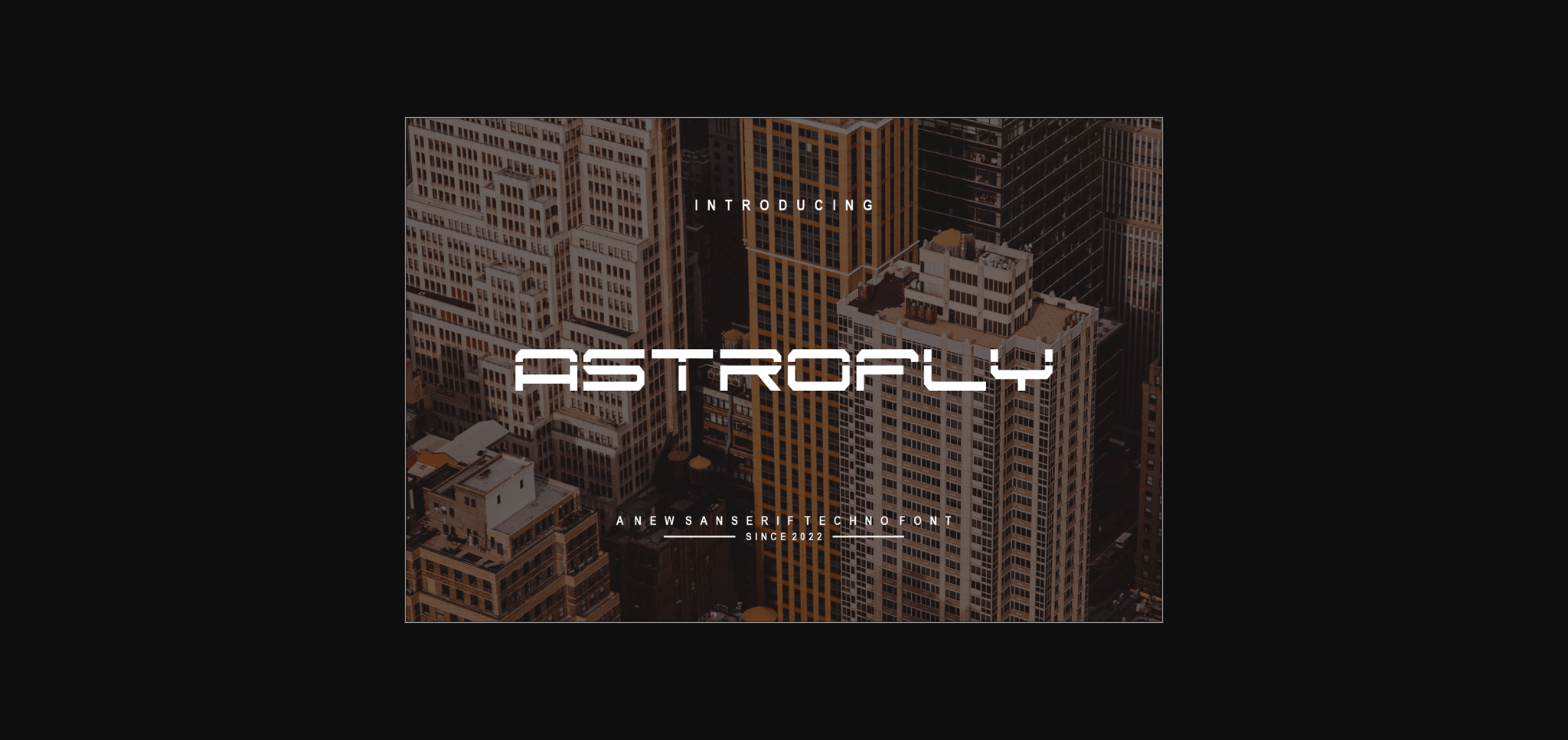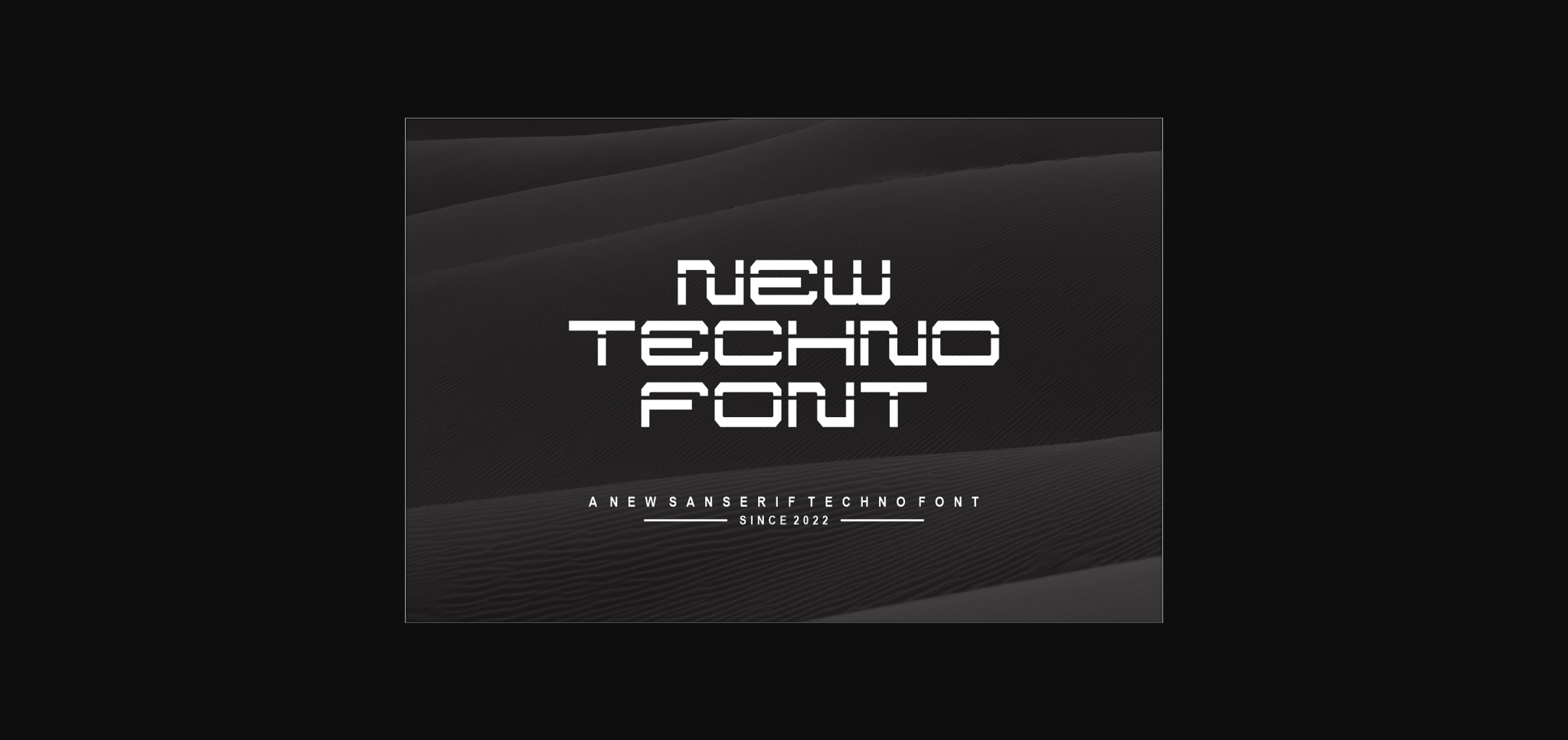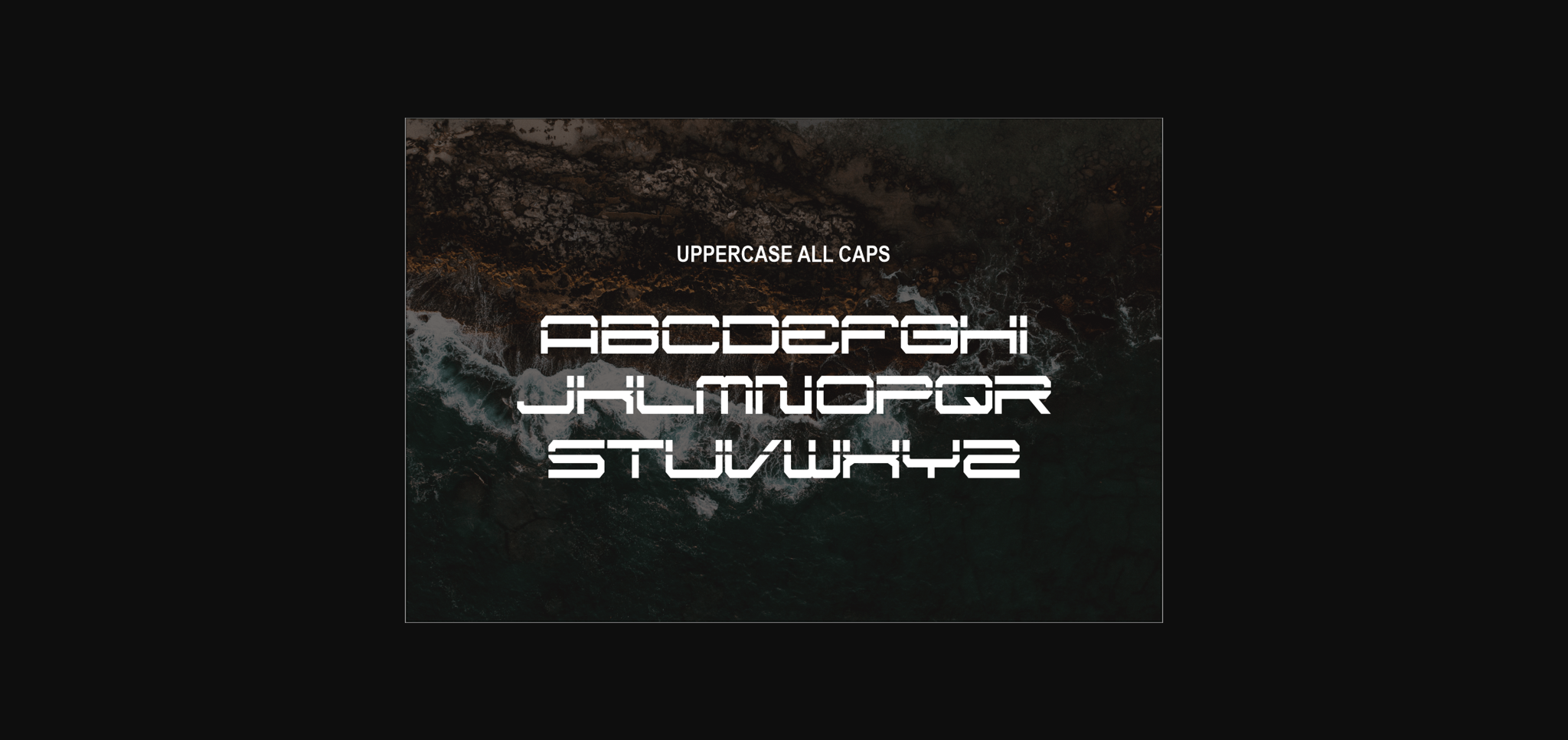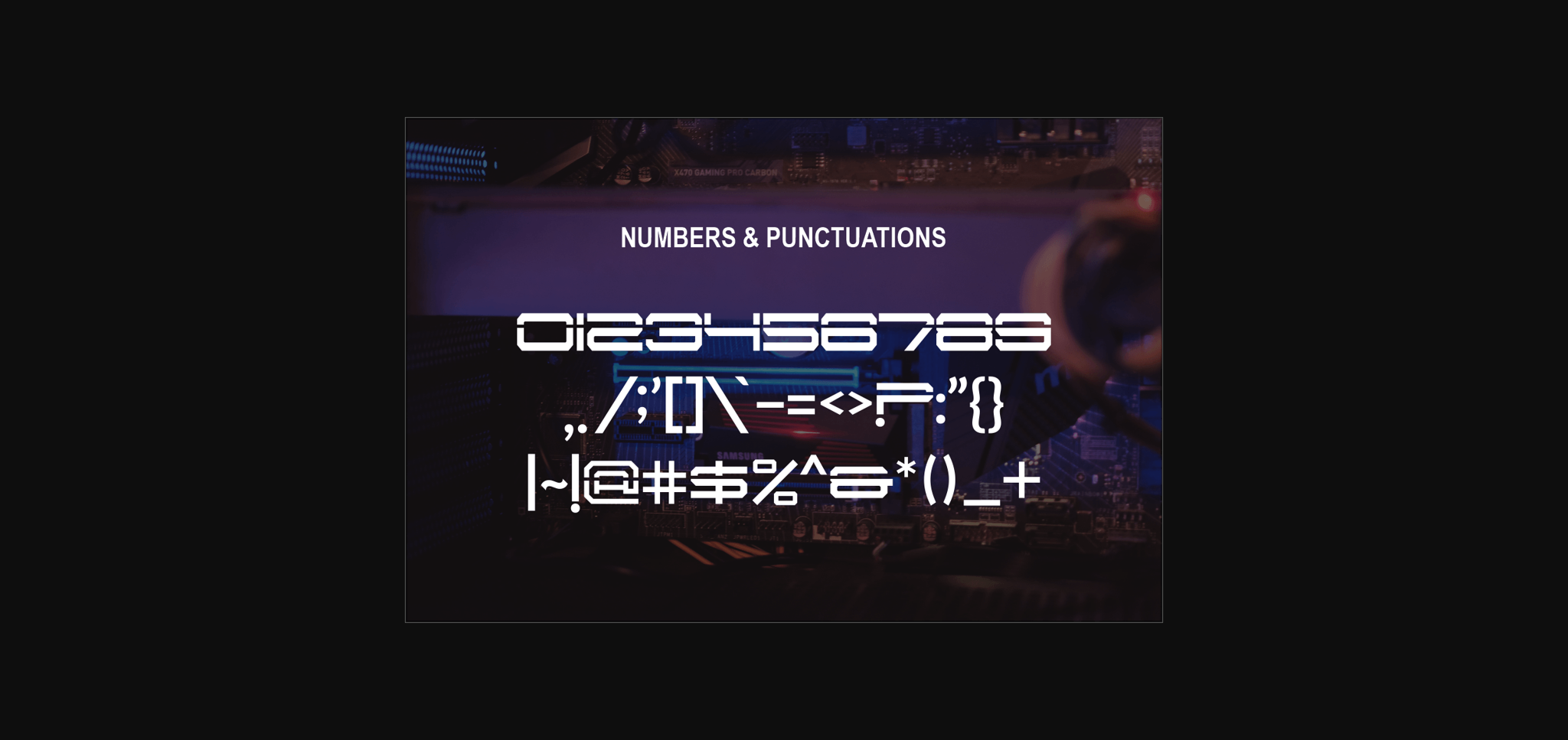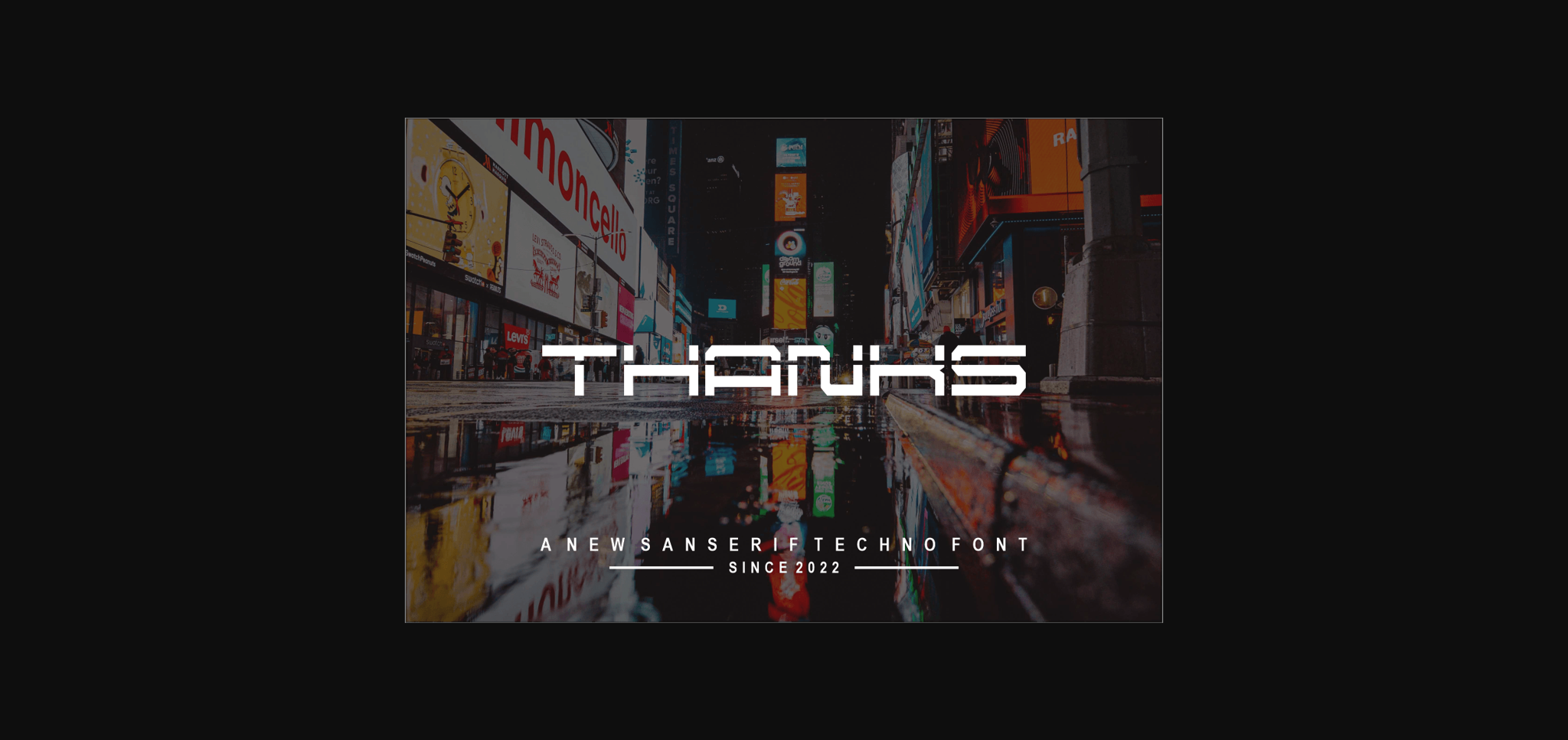
Astrofly Font
About Astrofly Font
Astrofly is a sweet and elegant sans serif typeface. It retains a classy calligraphic influence while feeling contemporary and fresh. Fall in love with it and take your project to the highest level!